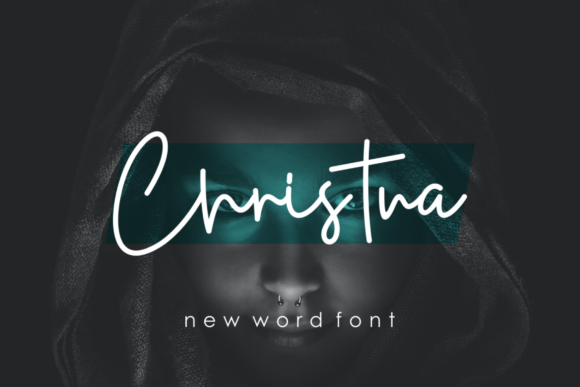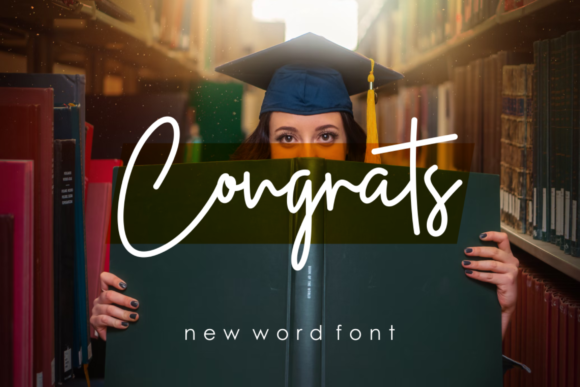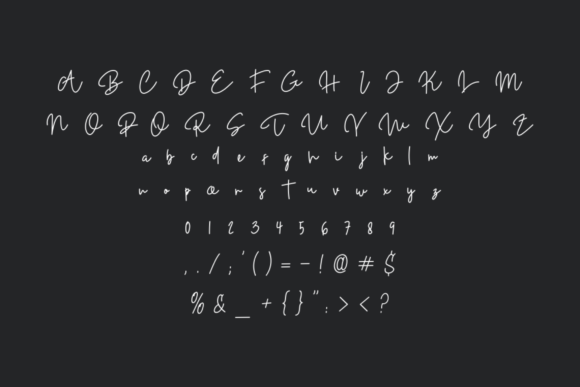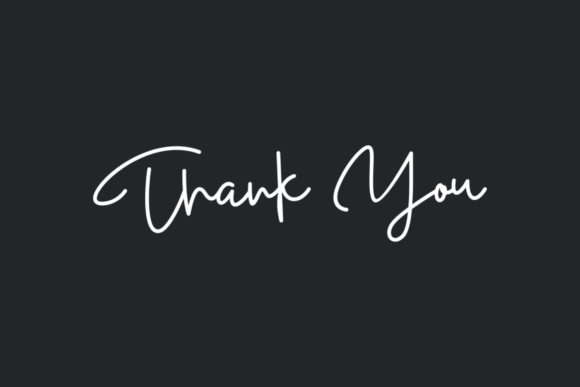
Daheng Font: Elevate Your Designs with a Stylish and Authentic Script
In the world of typography, fonts play a crucial role in conveying the tone and personality of a brand. For designers and crafters looking to add a touch of elegance and sophistication to their projects, the Daheng font is an excellent choice. This stylish and authentic script font is versatile, making it suitable for a wide range of applications, from logos and t-shirt printing to sports and more.
What is Daheng Font?
Daheng is a beautifully crafted script font that exudes a sense of luxury and refinement. Its flowing lines and curves create a sense of movement, making it perfect for designs that require a dynamic and expressive touch. The font’s authentic feel makes it ideal for projects that require a personal and human touch, such as handmade crafts, bespoke products, and unique branding initiatives.
Key Features of Daheng Font
- Stylish and Authentic: Daheng’s script font is designed to add a touch of sophistication and elegance to any design project.
- Versatile: Suitable for a wide range of applications, including logos, t-shirt printing, sports, and more.
- Easy to Read: Despite its ornate design, Daheng is surprisingly easy to read, making it perfect for body text and headlines.
- Scalable: The font is highly scalable, ensuring that it looks great in various sizes and resolutions.
Use Cases for Daheng Font
Daheng’s versatility makes it an excellent choice for various design projects. Here are some use cases where Daheng can shine:
- Logo Design: Create a lasting impression with a custom logo that incorporates Daheng’s stylish and authentic script.
- T-Shirt Printing: Add a touch of personality to your t-shirt designs with Daheng’s unique and eye-catching font.
- Sports Branding: Daheng’s dynamic feel makes it perfect for sports-related branding projects, such as team logos, jerseys, and merchandise.
- Stationery and Packaging: Elevate your brand’s stationery and packaging with Daheng’s elegant and sophisticated script.
Tips for Using Daheng Font Effectively
To get the most out of Daheng, here are some tips to keep in mind:
- Pair with Simple Fonts: Balance Daheng’s ornate design with simple fonts to create visual harmony.
- Use for Headlines and Titles: Daheng’s stylish design makes it perfect for headlines and titles, adding a touch of elegance to your designs.
- Experiment with Colors: Daheng looks great in various colors, so don’t be afraid to experiment and find the perfect hue for your design.
In conclusion, Daheng font is a stylish and authentic script font that can elevate your designs to the next level. Its versatility, elegance, and sophistication make it perfect for a wide range of applications, from logos and t-shirt printing to sports and more. Whether you’re a designer or crafter, Daheng is an excellent choice for adding a touch of luxury and refinement to your projects. So why wait? Download Daheng font today and start creating stunning designs that leave a lasting impression!